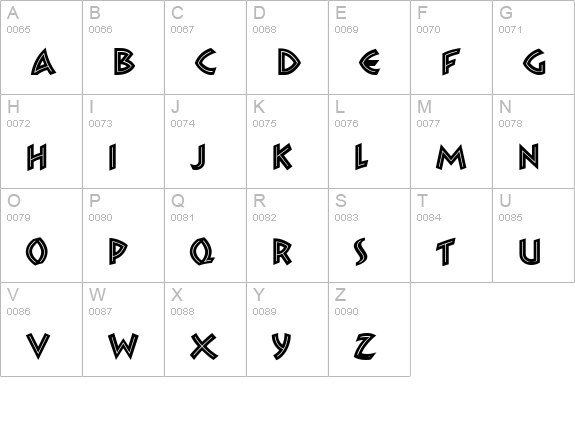
Zambesi MN Font Details
Zambesi MN font is a beautifully crafted typeface that exudes elegance and sophistication. With its sleek and modern design, this font is perfect for adding a touch of style to any project. Whether you're designing a logo, creating a website, or working on a print project, Zambesi MN font is sure to make a statement. What sets Zambesi MN font apart is that it is not only visually stunning, but also incredibly versatile. Its clean lines and sharp edges make it easy to read, while its unique flair adds a touch of personality to any text. This font is suitable for a wide range of applications, from headlines to body text. And the best part? Zambesi MN font is completely free to download at FontsMarket.com. That's right, you can get your hands on this gorgeous font without spending a dime. So why wait? Add Zambesi MN font to your collection today and take your designs to the next level!